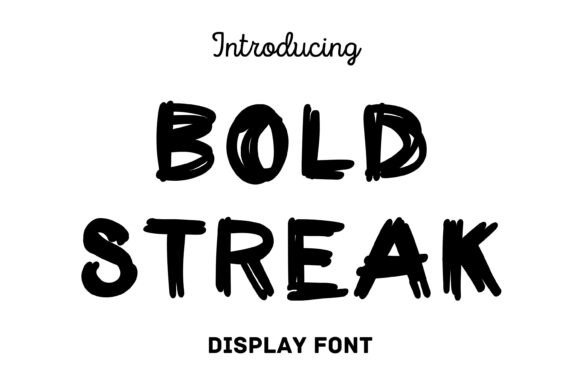
The Bold Streak Font: Unleashing Urban Energy in Your Designs
I’ll never forget the time I was working on a streetwear branding project, and my client asked for a font that would make their logo pop on a t-shirt. I scoured the internet for hours, but nothing seemed quite right. That was until I stumbled upon the Bold Streak font. Its raw, urban energy was exactly what I needed to bring the design to life. In this article, I’ll share my experience with Bold Streak, its features, and how to make the most of it in your designs.
What is Bold Streak Font?
Bold Streak is a hand-drawn display font that embodies the spirit of modern urban design. Inspired by thick marker strokes, this font is perfect for creating bold, eye-catching graphics, branding, apparel, and posters. Its unique character makes it ideal for street-style merch, social media visuals, and high-impact headlines.
My Honest Review of Bold Streak
- ✨ Unique Urban Style: Bold Streak’s hand-drawn feel gives it a distinctive, urban vibe that’s hard to find in other fonts.
- ✅ Ease of Use: The font is easy to read, even at smaller sizes, making it versatile for various design projects.
- 💥 High-Impact Headlines: Bold Streak is perfect for creating attention-grabbing headlines that demand attention.
- 🎨 Creative Freedom: The font comes with a range of OpenType features, glyphs, and stylistic alternates, giving you plenty of room for creative experimentation.
While Bold Streak is an excellent font, there are a few things to keep in mind:
- ⚠️ Legibility at Small Sizes: While generally easy to read, some characters may lose clarity at very small sizes. It’s best used for headlines or larger text.
- 🤔 Pairing with Other Fonts: Due to its bold nature, Bold Streak works best when paired with simpler fonts to avoid visual overload.
The Designer Inspiration Behind Bold Streak
Bold Streak was created by a designer who wanted to capture the raw energy of urban street art. Inspired by the bold strokes of markers and spray paint, this font brings a piece of the city to your designs. Whether you’re working on a branding project or a streetwear collection, Bold Streak is designed to make a statement.
Q: What type of projects is Bold Streak best suited for?
A: Bold Streak is perfect for modern designs, including street-style merch, social media visuals, posters, and high-impact headlines.
Q: Does Bold Streak support OpenType features?
A: Yes, Bold Streak comes with a range of OpenType features, glyphs, and stylistic alternates, allowing for creative flexibility in your designs.
Q: Is Bold Streak easy to read?
A: Bold Streak is generally easy to read, especially at larger sizes. However, some characters may lose clarity at very small sizes.